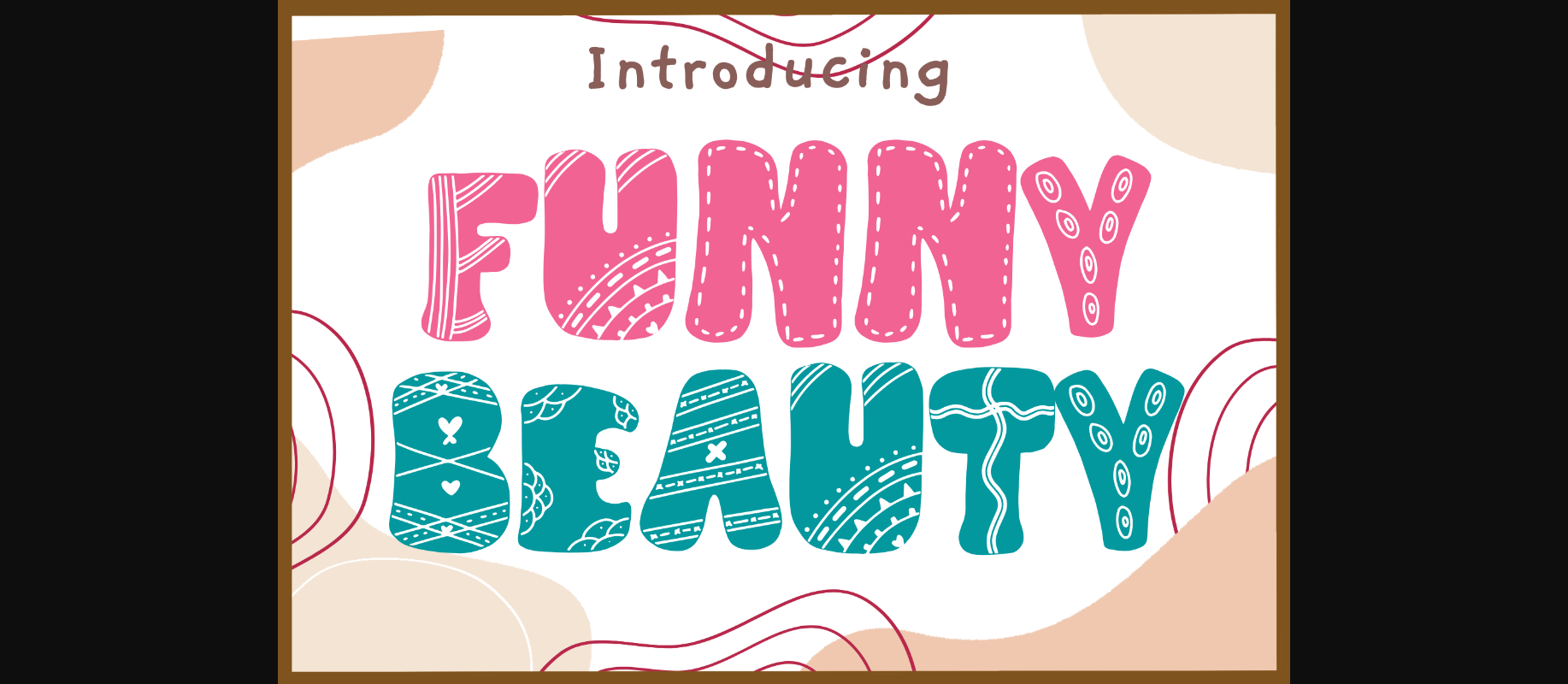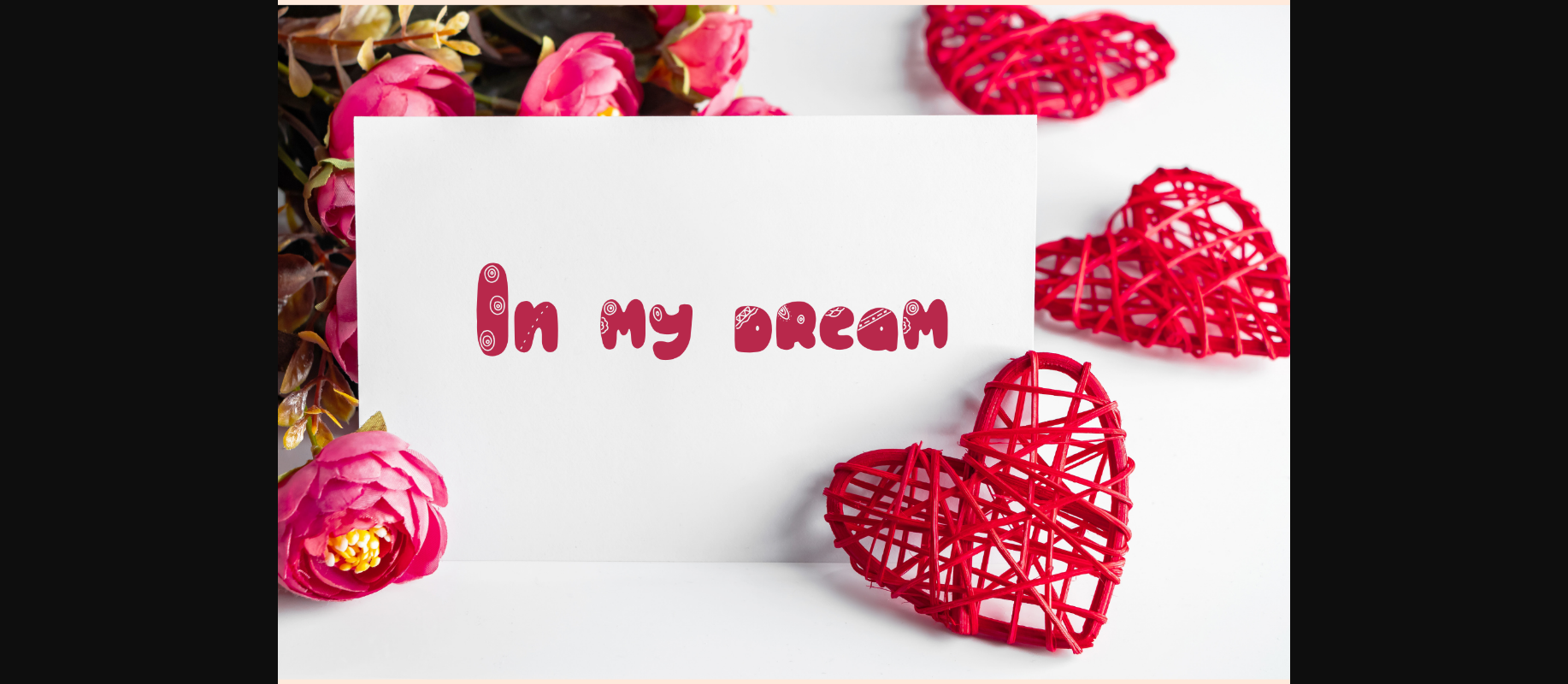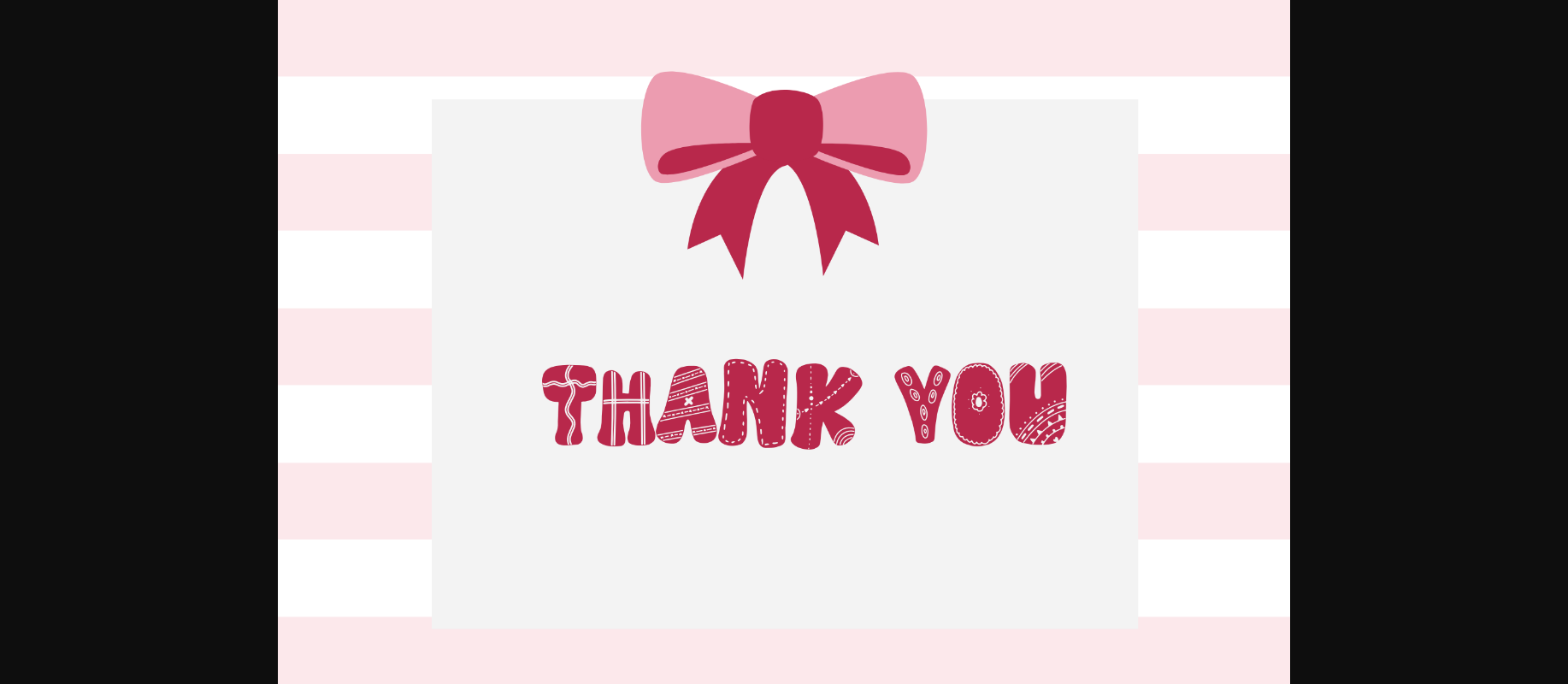
About Funny Beauty Font
Funny Beauty is a super cute decorative font with bold characters and a playful look. Add it to back-to-school projects, educational designs, presentations, or anything that needs whimsical typography.